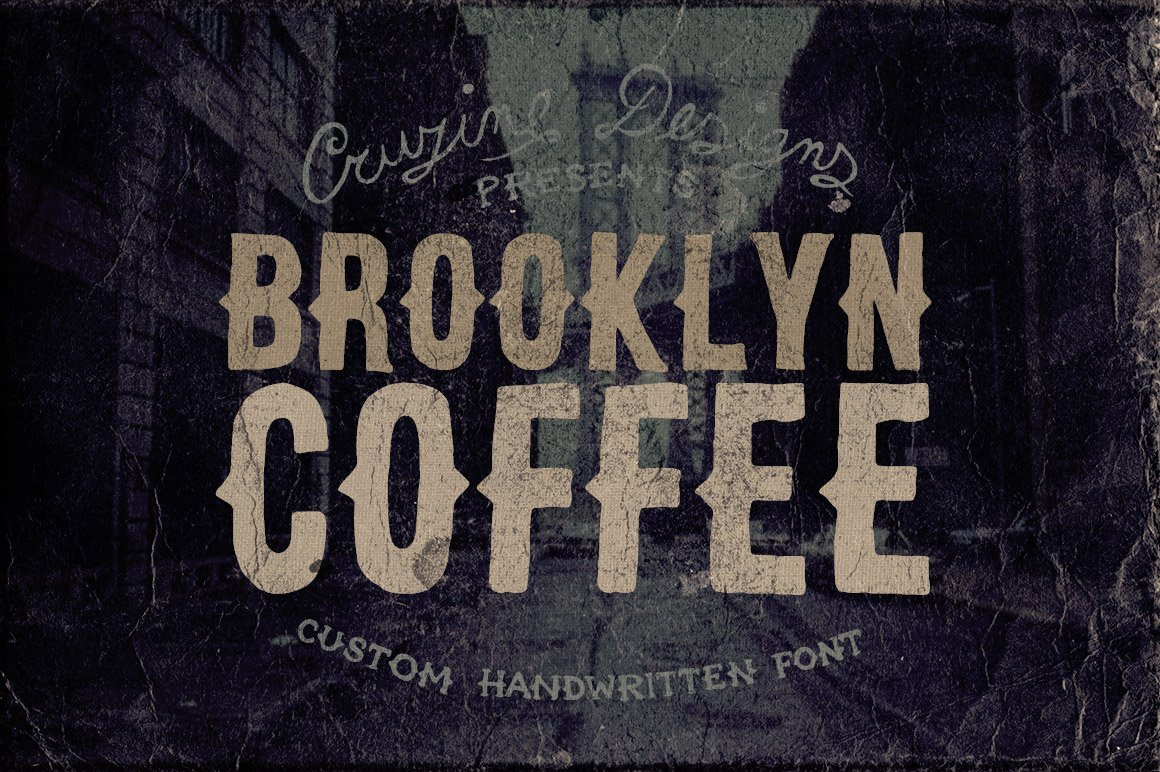
Brooklyn Coffee Custom Font
Brooklyn Coffee Custom Font is perfect for artisanal coffee shops, urban café branding, specialty roastery packaging, hipster coffee culture promotions, trendy coffeehouse signage, craft coffee subscription services, Brooklyn-style eateries, indie coffee bar materials, boutique coffee retailers, and authentic coffee culture campaigns.
Brooklyn Coffee Custom Font creates excitement because it embodies the artisanal craftsmanship and urban sophistication of Brooklyn's coffee culture with its handcrafted letterforms and borough-inspired character design. The font's authentic curves and coffee shop aesthetic instantly convey artisanal quality and neighborhood authenticity, making any brand appear genuinely craft-focused and culturally connected. Its carefully crafted coffee heritage details and Brooklyn character create an immediate sense of urban coffee culture that captivates audiences seeking authentic coffee experiences, artisanal quality, and products that celebrate the rich tradition of neighborhood coffee craftsmanship and community gathering.
This authentic typeface brings the genuine spirit of Brooklyn coffee culture into contemporary café design with remarkable craftsmanship and urban appeal. Brooklyn Coffee Custom Font Free Download provides coffee brands and artisanal establishments with access to premium coffee-inspired typography that embodies the essence of neighborhood coffee culture and artisanal brewing excellence. The font's craft design and Brooklyn authenticity make it ideal for businesses seeking to establish meaningful connections with coffee enthusiasts and urban communities who appreciate authentic coffee culture, artisanal craftsmanship, and the transformative power of neighborhood coffee traditions. Whether you're creating branding for independent coffee shops, designing materials for specialty roasteries, developing packaging for craft coffee products, or producing marketing content for coffee culture venues, this font delivers the authentic Brooklyn atmosphere that resonates with audiences seeking genuine coffee experiences, artisanal quality, and the community warmth that defines true neighborhood coffee culture. Its versatile design ensures excellent performance across both urban storefront signage and contemporary digital coffee platforms while maintaining the character of authentic Brooklyn coffee typography. The font excels in applications requiring coffee culture credibility and artisanal appeal. Coffee industry professionals appreciate its ability to convey Brooklyn authenticity while remaining highly functional for various café communications and coffee culture promotional materials. The comprehensive character set includes coffee symbols and extensive international language support, making it perfect for global coffee brands and international artisanal coffee organizations seeking to communicate authentic Brooklyn coffee culture, neighborhood hospitality, and craft coffee excellence to diverse worldwide audiences who cherish artisanal coffee, embrace neighborhood culture, and seek the authentic community connection that comes from genuine coffee craftsmanship and the rich traditions of Brooklyn's legendary coffee scene.